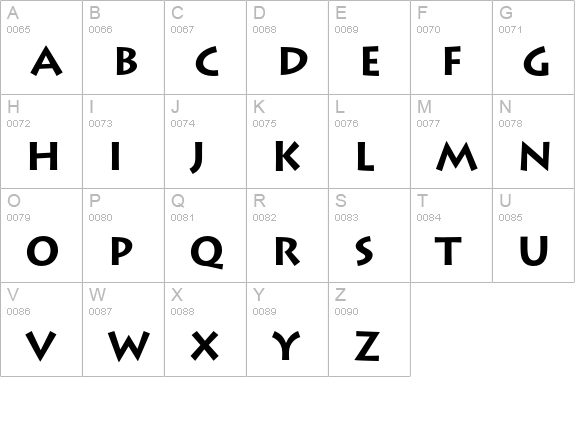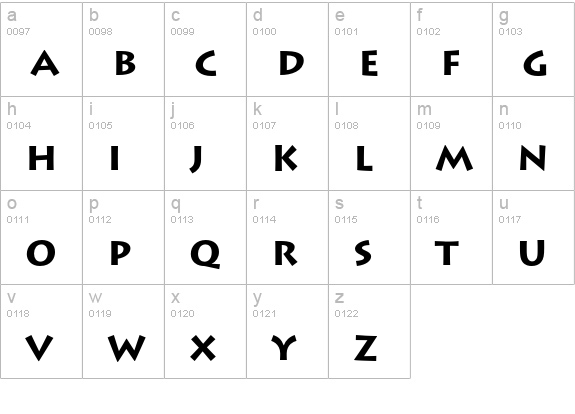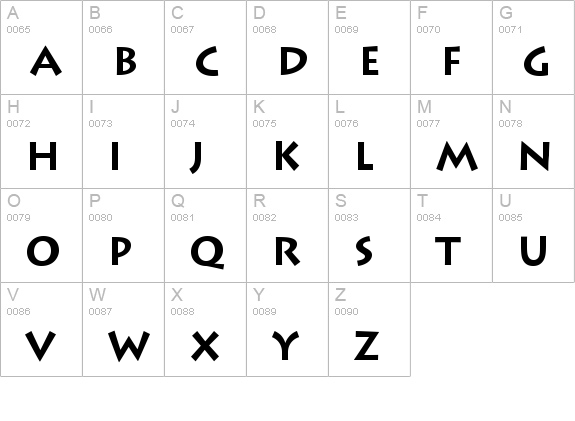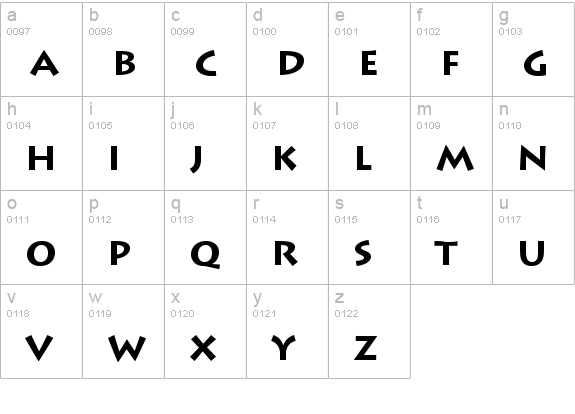
Lithos Pro Bold is a strong, high-contrast variant in the Lithos typeface family \xE2\x80\x94 well suited to headlines, attention-grabbing titles, and strong calls-to-action.
Lithos Pro Bold font is a versatile typeface that exudes strength and modernity. Its bold and sturdy design makes it perfect for headlines, titles, and other prominent text elements. The font's clean lines and sharp edges give it a contemporary look that is sure to make a statement. What sets Lithos Pro Bold font apart is that it is not only visually striking but also completely free to use. That's right, you can download this powerful font for no cost at all from FontsMarket.com. Whether you're working on a design project, creating marketing materials, or simply looking to add a touch of boldness to your text, Lithos Pro Bold font is the perfect choice. Download it today and unleash the power of this impressive typeface in your next project.